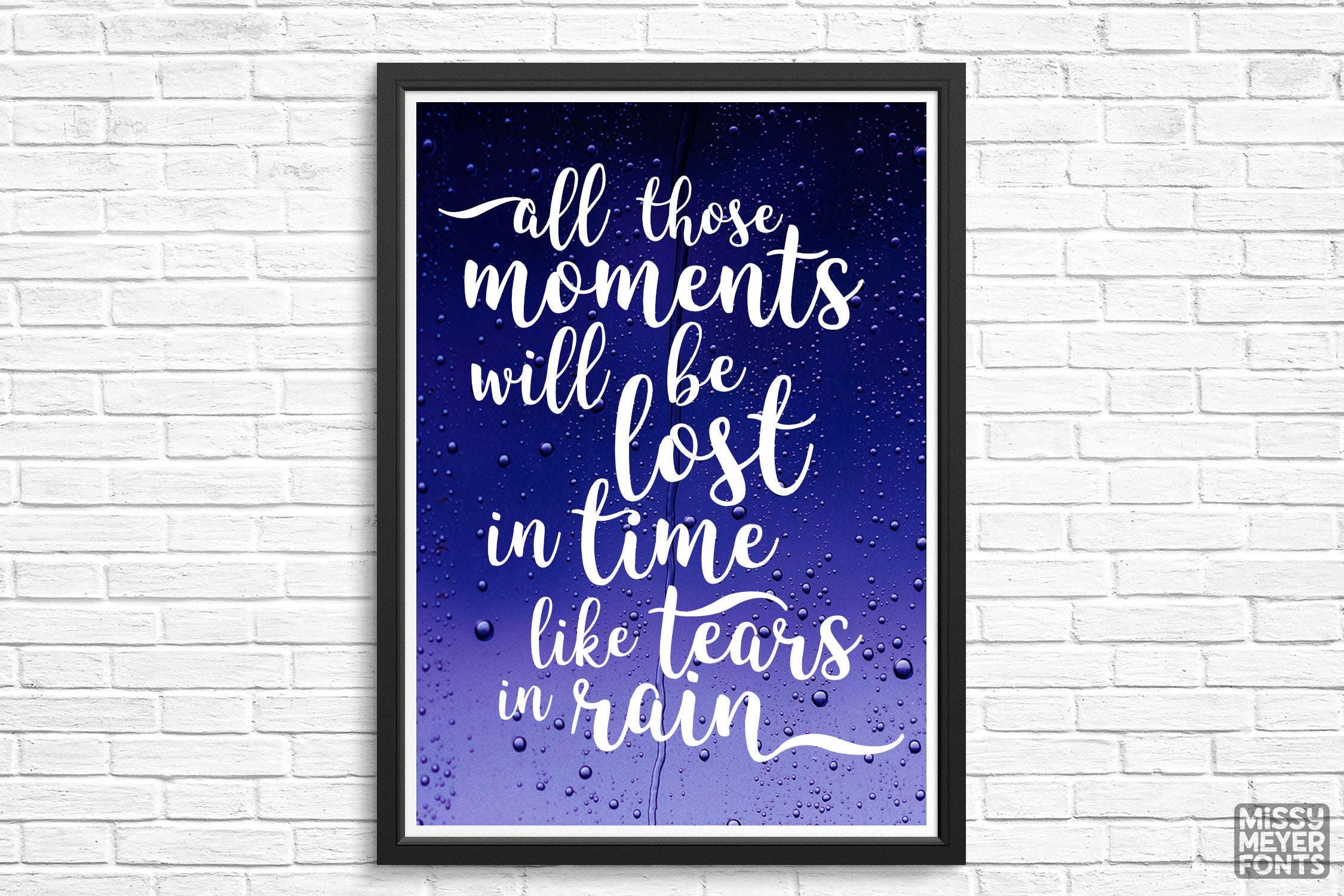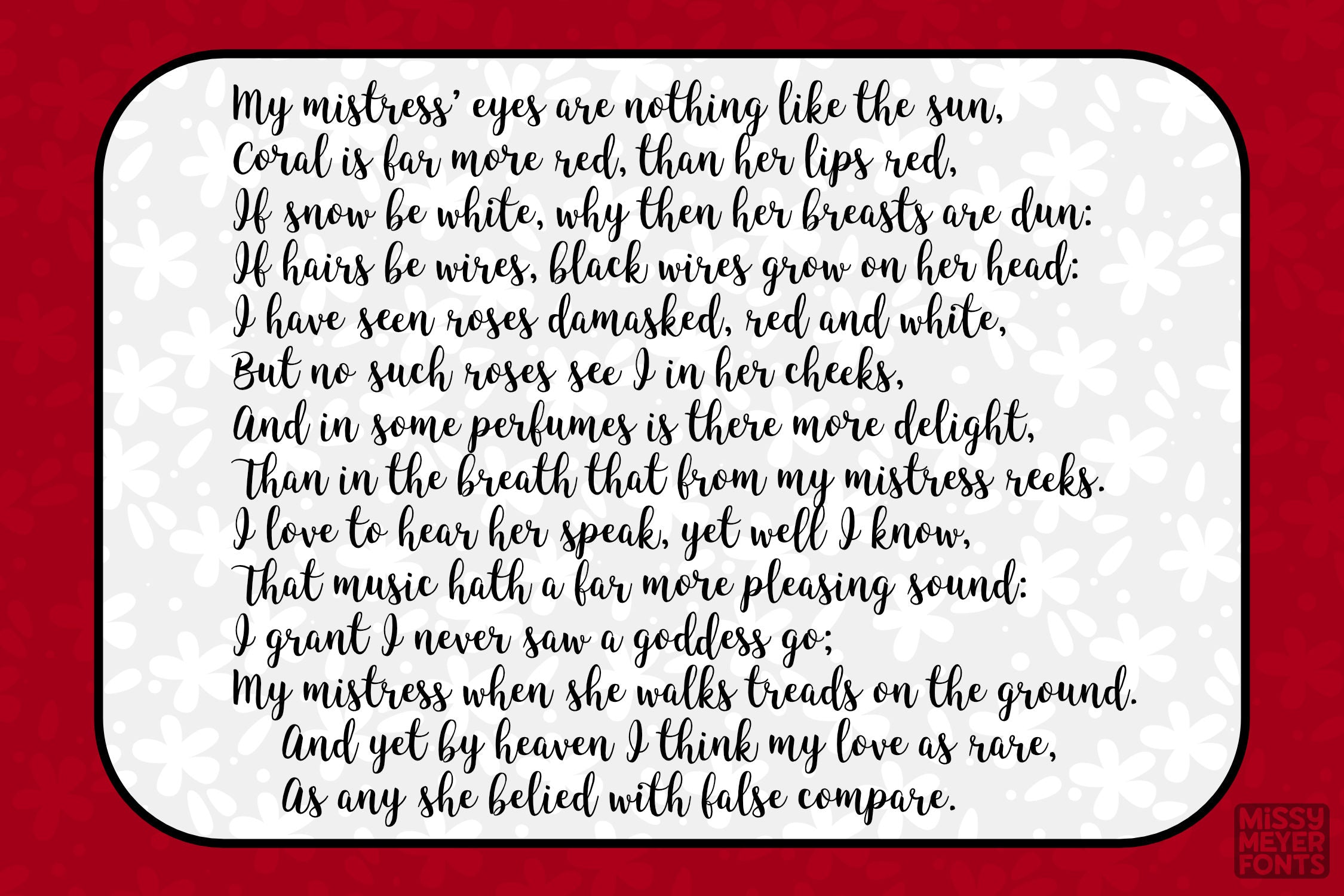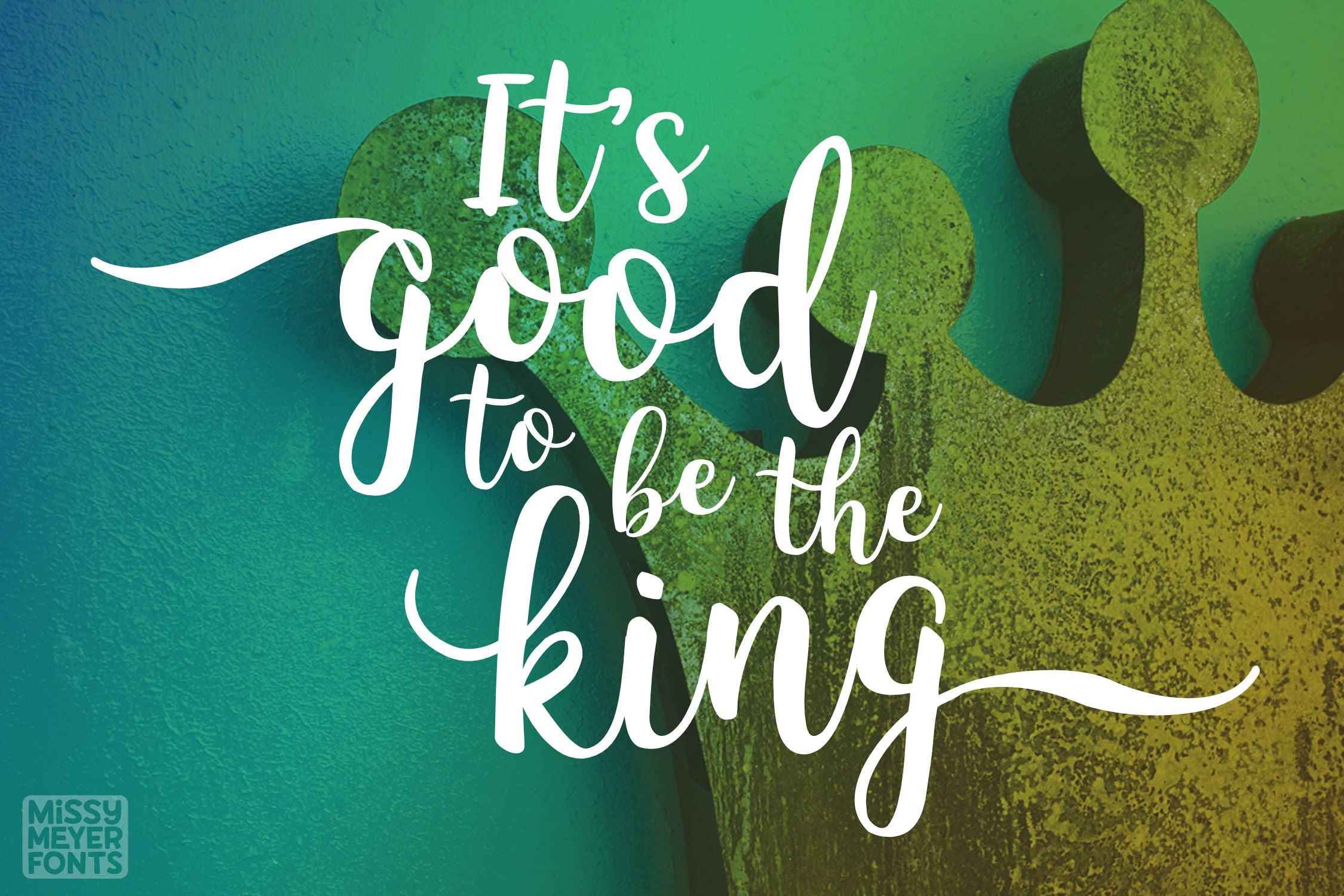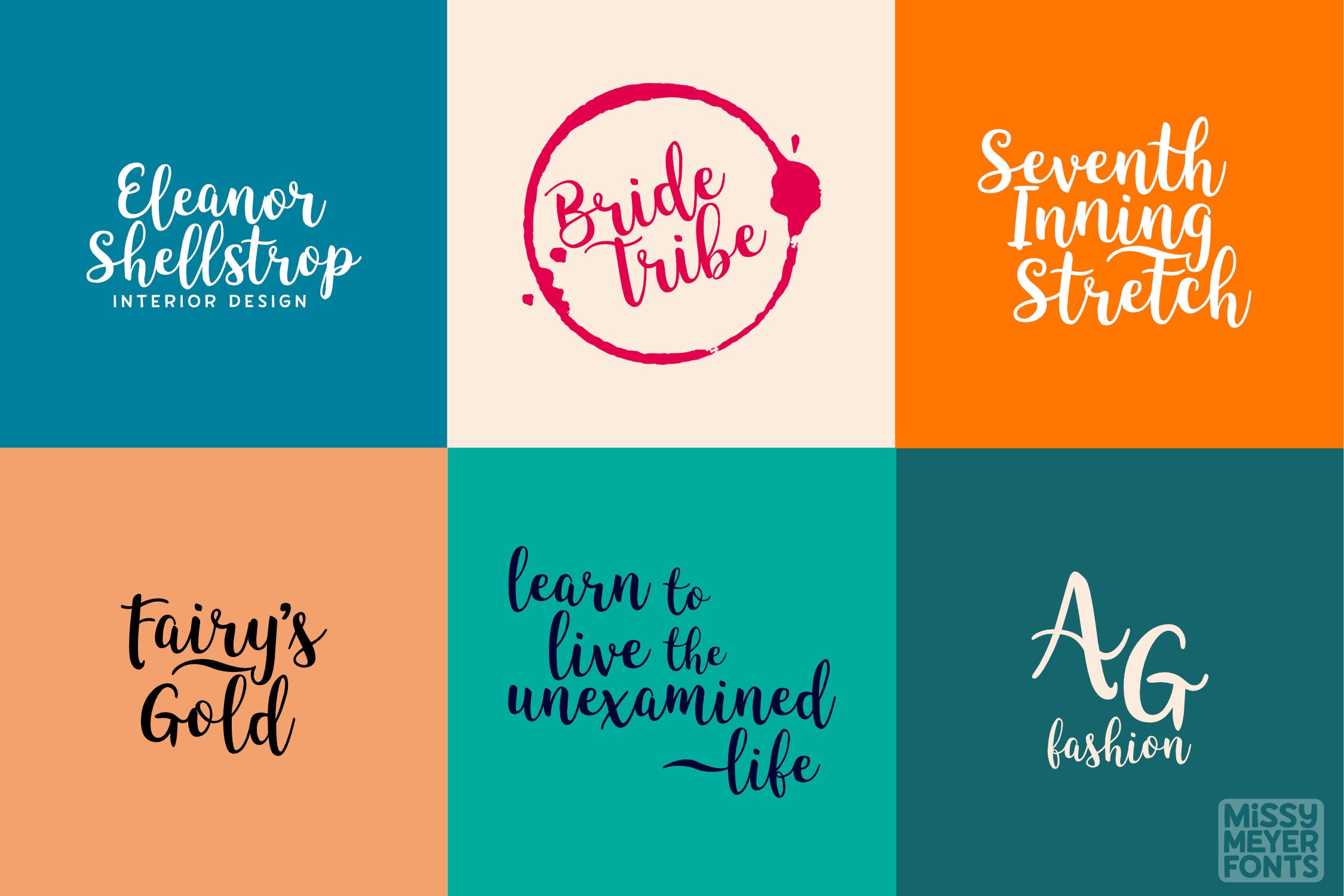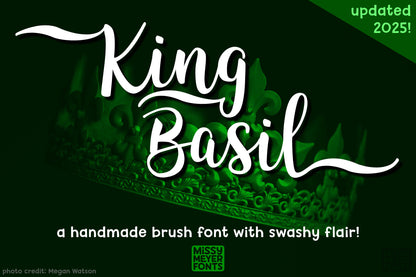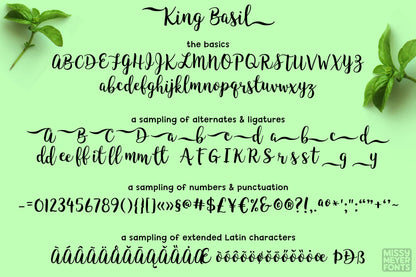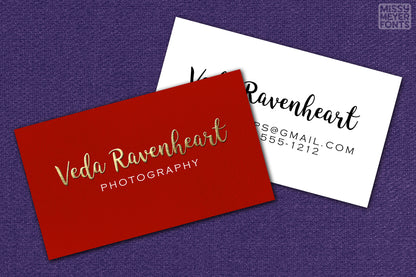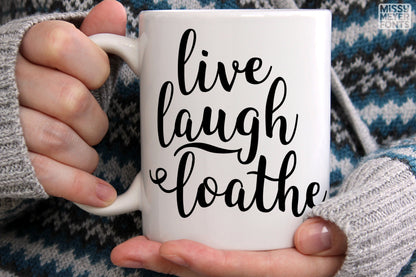
Freshly updated in 2025 to celebrate its 9th birthday, say hello to King Basil! The original version had a ton of alternates, but now I've added in even more, most of which were pulled from the original pen-on-paper scans! I've also added some new ligatures and swashes, and I've freshened up and updated most of the characters.
King Basil includes all the basics (A–Z, a–z, numbers, and tons of punctuation); plus entry swash alternates for uppercase and lowercase and exit swash alternates for lowercase; 15 double-letter ligatures; 24 additional alternates for variety; over 200 extended Latin characters for language support; and a handful of decorative swashes to give things extra flair!